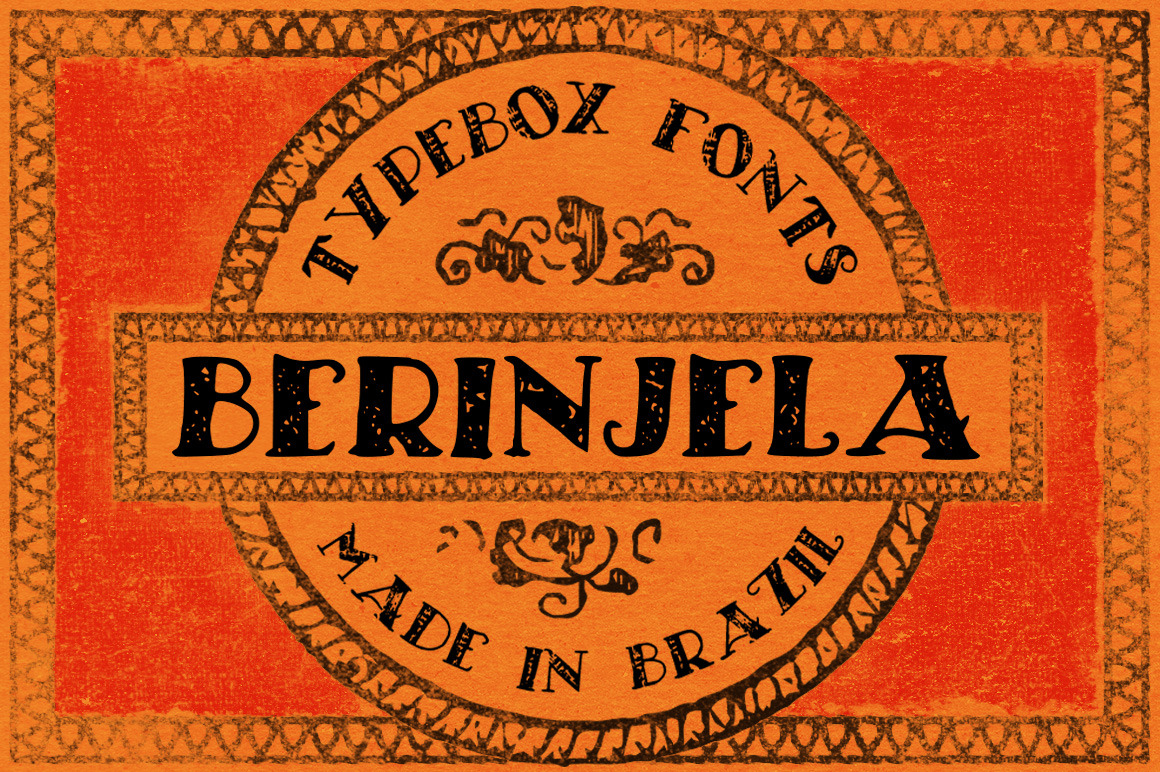
Berinjela Font
Typebox presents:
Berinjela
A hand drawn type family with 3 styles:
- Rough
- Brush
"Berinjela" or Beringela is the Portuguese word for Eggplant, this font is inspired by hand made signs in food markets.